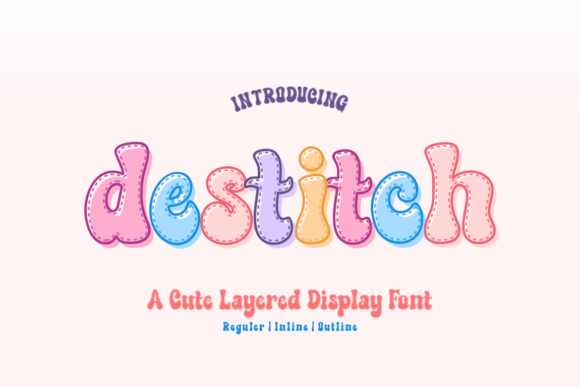
In the realm of digital storytelling, your Instagram stories are like captivating snapshots, where every visual element contributes to the narrative. Introducing Destitch, a playful display font family that's the perfect tool to elevate your Instagram stories to new heights of creativity and engagement.
With its three distinctive styles - regular, inline, and outline - Destitch offers endless possibilities for expressing your unique style. Whether you're an aspiring influencer, a creative entrepreneur, or simply someone who loves sharing their moments with the world, Destitch is the key to unlocking your storytelling potential.
Dive into the world of Destitch Regular and let your words dance with a touch of whimsy. Its playful curves and energetic rhythm will infuse your stories with a sense of movement and vitality. Capture the attention of your audience and keep them engaged as they follow your narrative, eager to see what delightful surprises await them next.
Embrace the elegance of Destitch Inline, where each letter is outlined with precision, creating a visually striking contrast. Let your messages shine with sophistication and clarity, as if each word were a piece of art. Perfect for announcements, quotes, or product promotions, Destitch Inline adds a touch of class to your Instagram stories, leaving a lasting impression on your followers.
Step into the realm of Destitch Outline, where the boundaries of creativity truly blur. With its bold and expressive strokes, Destitch Outline transforms your words into captivating silhouettes, inviting your audience to fill in the blanks with their imagination. Perfect for creating teasers, showcasing products, or sharing inspirational messages, Destitch Outline is the ultimate tool for crafting stories that resonate and leave a lasting impact.
But Destitch is not just a collection of styles; it's an invitation to let your creativity soar. Whether you're a seasoned designer or just starting your journey into the world of visual storytelling, Destitch empowers you to create content that reflects your unique personality and style. Its versatility makes it the perfect font for a wide range of purposes, from personal stories to business promotions.
Elevate your Instagram stories from ordinary to extraordinary with Destitch, where every word becomes a brushstroke, every sentence a masterpiece. Embrace the power of Destitch and unlock the storyteller within you.